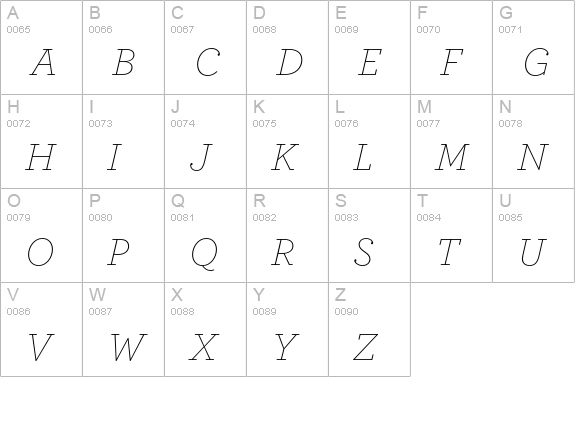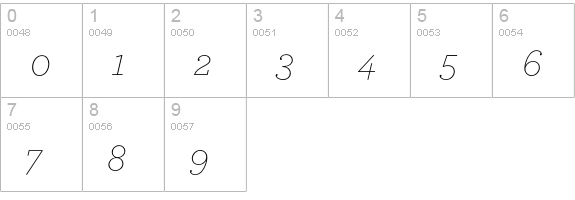
ArcherPro Extra Light Italic Font Details
ArcherPro Extra Light Italic is a refined, elegant, italic variant in the ArcherPro typeface family \xE2\x80\x94 well suited to elegant body text, refined sub-headings, and luxury branding.
Introducing ArcherPro Extra Light Italic font, a sleek and modern typeface that exudes elegance and sophistication. With its delicate letterforms and subtle slant, this font is perfect for adding a touch of sophistication to any design project. The Extra Light weight gives it a delicate and refined appearance, making it ideal for use in fashion magazines, luxury branding, and upscale invitations. What sets ArcherPro Extra Light Italic font apart is not only its impeccable design but also its accessibility. This premium font is available for free download at FontsMarket.com, allowing designers and creatives to easily incorporate it into their projects without any cost. Whether you're working on a high-end editorial layout or a chic branding campaign, ArcherPro Extra Light Italic font will elevate your design with its timeless beauty and effortless style. Download ArcherPro Extra Light Italic font for free today at FontsMarket.com and experience the luxury of premium typography at your fingertips. Elevate your design projects with this elegant and sophisticated typeface that is sure to make a lasting impression.